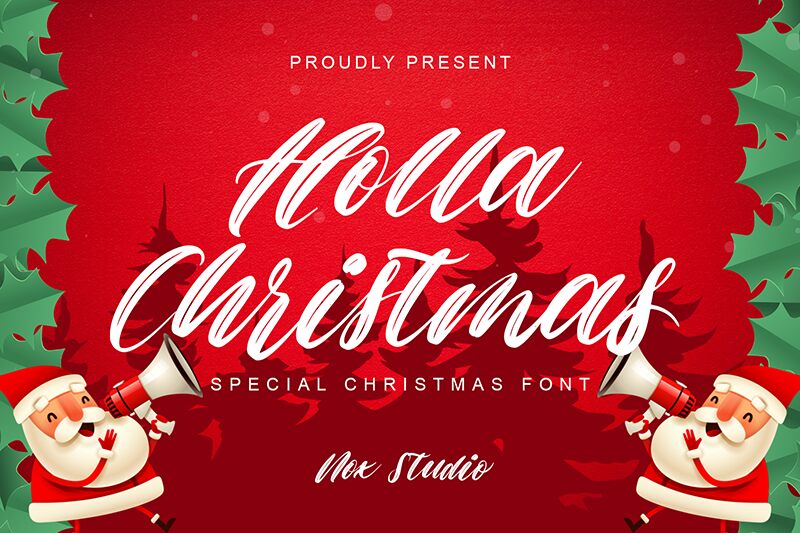
Holla Christmas
Holla Christmas font is a free brush typeface from Sarif Letter. The font features condensed letters that are fluid and expressive with great attention to detail. It falls under the category of creative, romantic, and sophisticated fonts with an elegant design that’s definitely worth getting.
Using this beautiful font in your projects will help you add a festive Christmas vibe to them. These can include books, magazines, logos, stickers, invitations for friends or family gatherings during the holidays as well as flyers promoting special offers at businesses during holiday seasons like restaurants!